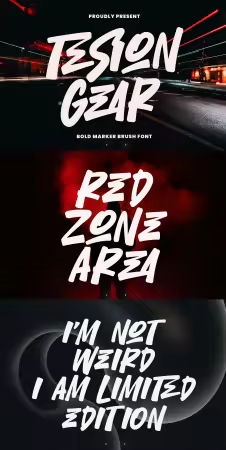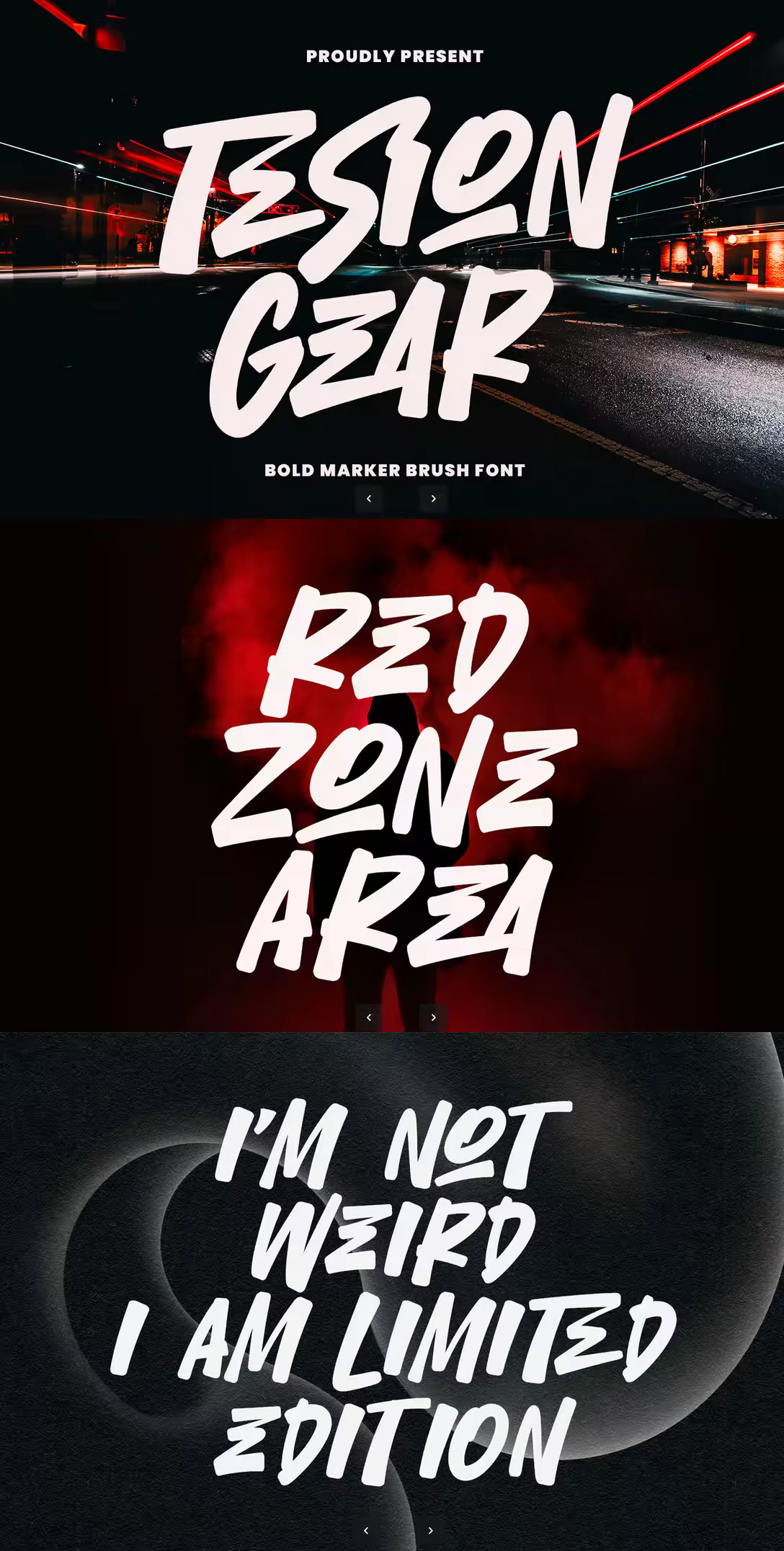
Tesion Gear is a powerhouse bold marker brush font designed to bring an edgy, urban, and high-energy vibe to your creative projects. Inspired by street art and fast-paced lifestyle, this font features thick, expressive strokes that mimic the natural flow of a permanent marker on a rough surface.
Whether you are designing a brand logo, an eye catching design, sports, or high-impact social media graphics, Tesion Gear provides the grit and personality you need to stand out. Its aggressive yet legible style makes it perfect for headlines that need to shout!
Uppercase & Lowercase characters
Stylistic Alternates & Ligatures for a natural look
Numbers & Punctuation